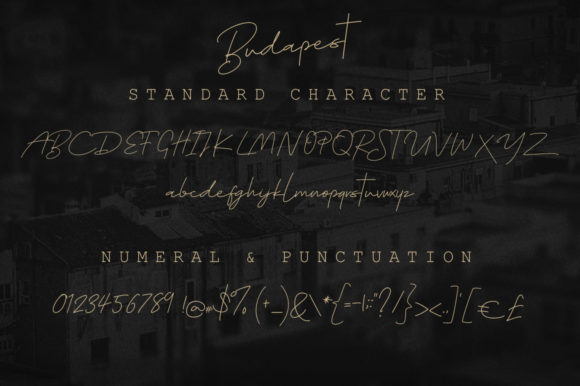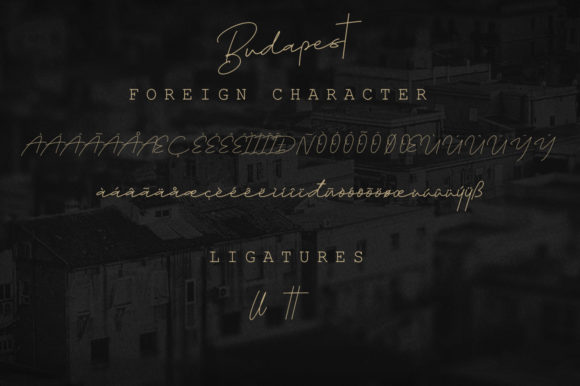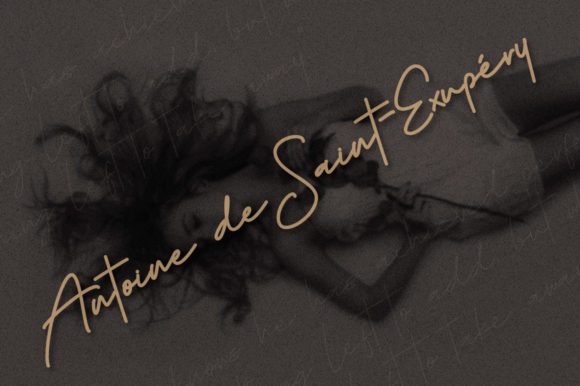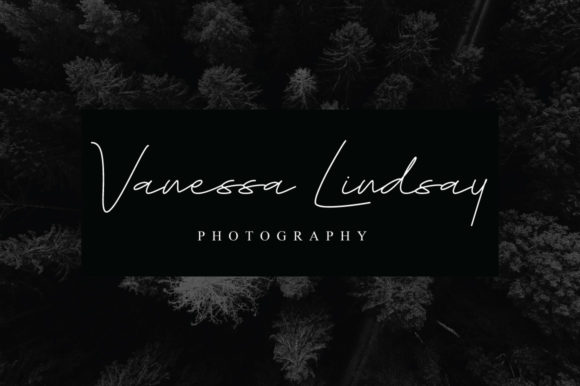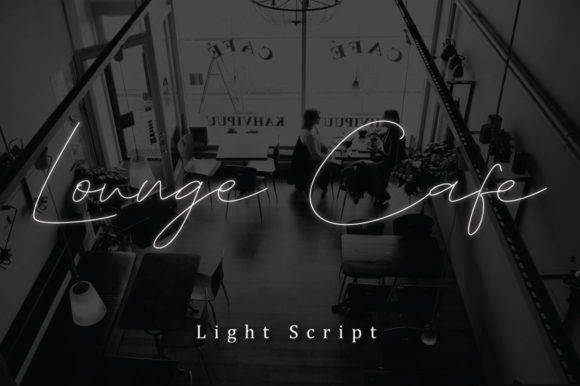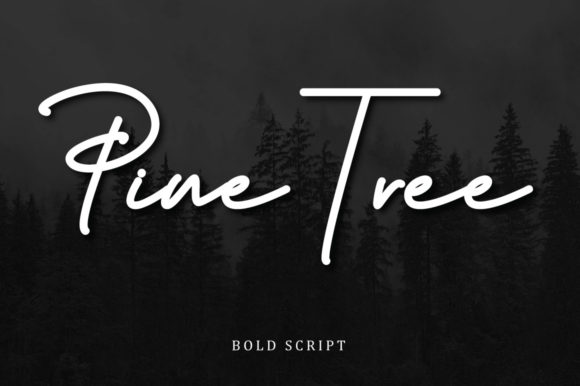
The Ultimate Family Font for Your Next Creative Project
Have you ever sat down at your desk, staring blankly at your computer screen, trying to find the perfect font to match your brand’s personality? It’s a struggle we’ve all been through, but what if I told you there’s a font family that can make that process a whole lot easier?
Meet the Budapest Family Font, a collection of three luxurious styles that are perfect for personal branding, blogging, and much more. Whether you’re a seasoned designer or just starting out, this font family is a valuable addition to your toolkit. With its sleek and sophisticated look, the Budapest Family Font is sure to elevate your designs and help you stand out from the crowd.
So, what makes the Budapest Family Font so special? Let’s dive in and find out.
Budapest Family Font Key Features
- Font Family: A family of 6 fonts including Budapest, Budapest Bold, Budapest Italic, Budapest Bold Italic, Budapest Condensed, and Budapest Condensed Bold Italic
- Size: 4 fonts with 6 weights (Light, Regular, Medium, Bold, Extra Bold, Black) and 2 fonts with 2 weights (Condensed, Condensed Bold)
- Resolution: Designed to be scalable for both print and digital use, with high resolution support for crisp display on high-resolution screens
- Unique Characteristics: Elegant, sophisticated, and modern design with a touch of traditional Hungarian flair, making it suitable for a wide range of applications, from fashion and lifestyle to travel and culture
- Language Support: Latin-based languages, including English, Spanish, French, German, Italian, Portuguese, and many more
Budapest Family Font Review
Overall, I think the Budapest Family Font is a decent addition to any designer’s toolkit. ✨ Here are a few things that really stand out:
- Unique, hand-crafted feel: The font has a distinct, human touch that can add a lot of character to your designs.
- Good for display text: The bold weights and playful flair make it well-suited for use in headlines and other display text.
- High-quality support: The font includes a wide range of languages and special characters, making it a good choice for projects that require international support.
Of course, no font is perfect, and there are a few limitations to be aware of: ⚠️
- Variable quality: Some of the weights and styles feel a bit inconsistent, which can be distracting in certain contexts.
- Lack of subtlety: The font can be a bit too bold and attention-grabbing for some uses, so be sure to use it sparingly.
- Not ideal for body text: While the font works well in headlines, it’s not the best choice for large blocks of body text.
Overall, I think the Budapest Family Font is a fun and versatile addition to any designer’s toolkit. While it may not be perfect, it’s definitely worth considering for the right project.
The Budapest Family Font is a versatile font that can be used for a variety of purposes, including:
- Restaurant and cafe menus
- Travel brochures and guides
Tips for Getting the Most Out of the Budapest Family Font
To get the most out of the Budapest Family Font, consider the following tips:
- Use it in conjunction with bold and italic styles to create visual interest.
- Pair it with other fonts to create a unique and eye-catching design.
- Experiment with different font
Alternatives to Budapest Family Font for Designers
Playfair Display is a high-end, elegant serif font ideal for creating a luxurious and sophisticated look. It’s perfect for use in titles, headings, and other display typography. It’s more formal and refined compared to Budapest Family Font, which is more playful and versatile.